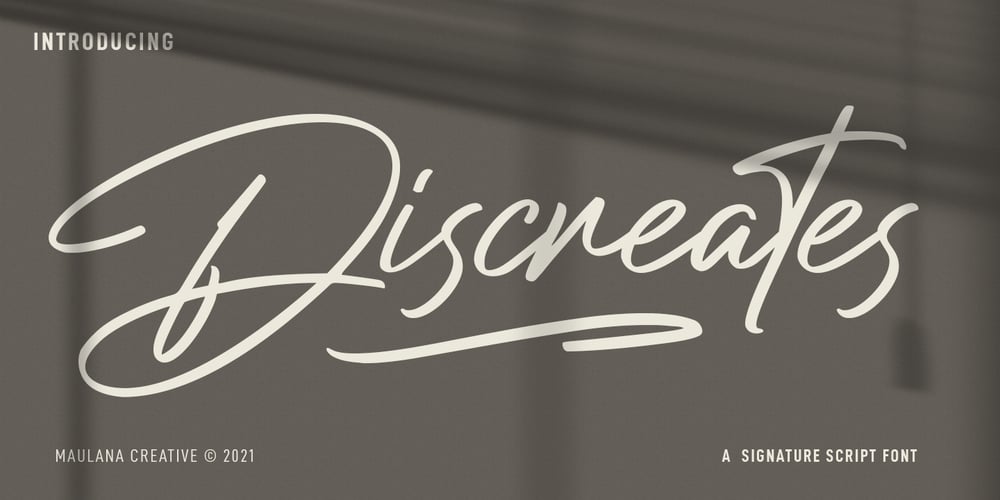
Discreates Font Family was designed by Gilang Maulana and published by Maulana Creative. Discreates contains 2 styles and family package options. Discreates is a signature script font. With regular felt-tip stroke, fun character with a bit of ligatures and swashes. To give you an extra creative work. Discreates font support multilingual more than 100+ language. This font is good for logo design, Social media, Movie Titles, Books Titles, a short text even a long text letter and good for your secondary text font with sans or serif. Make a stunning work with Discreates font.Cheers, MaulanaCreative